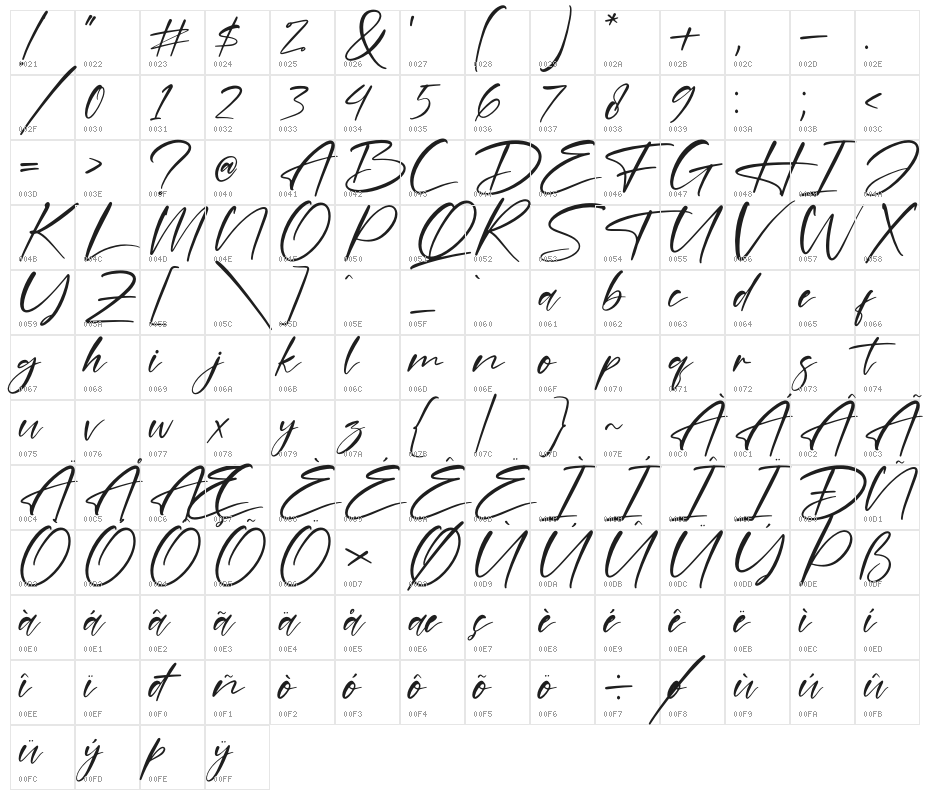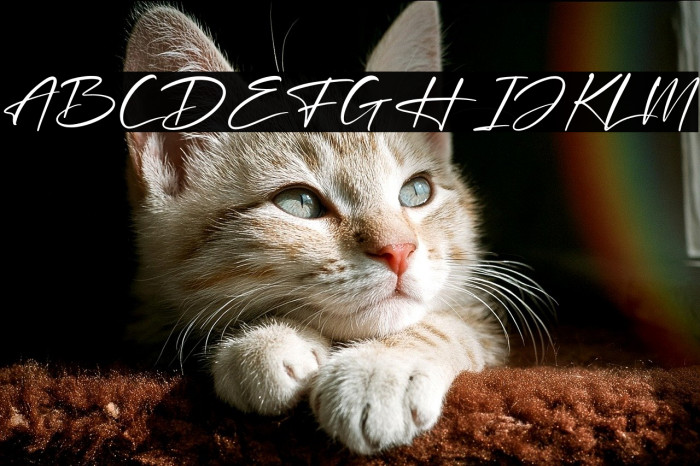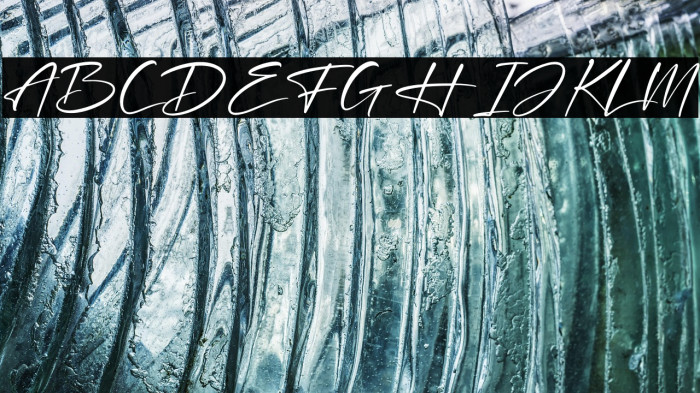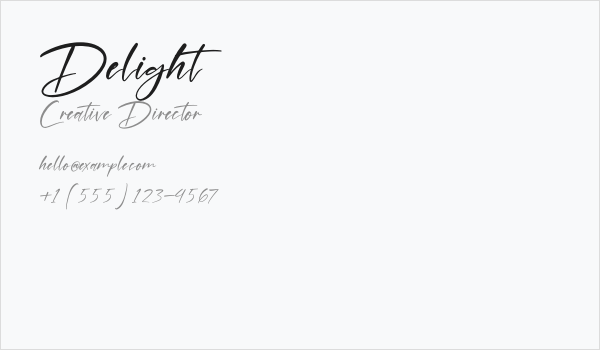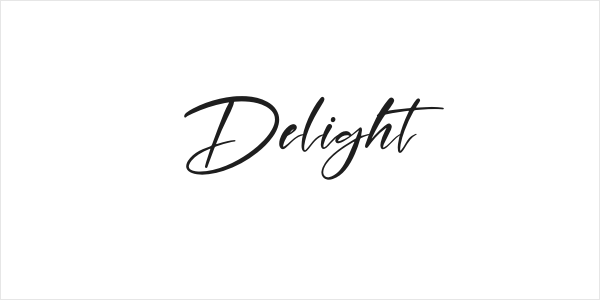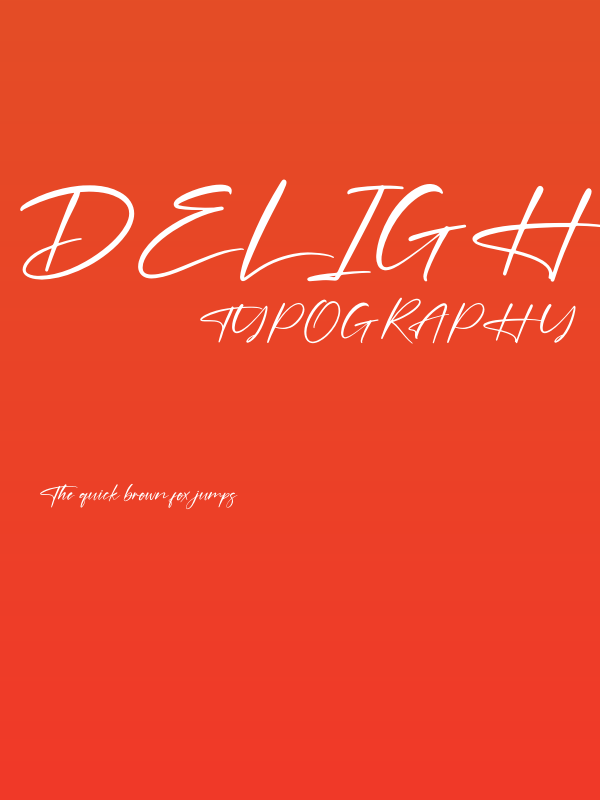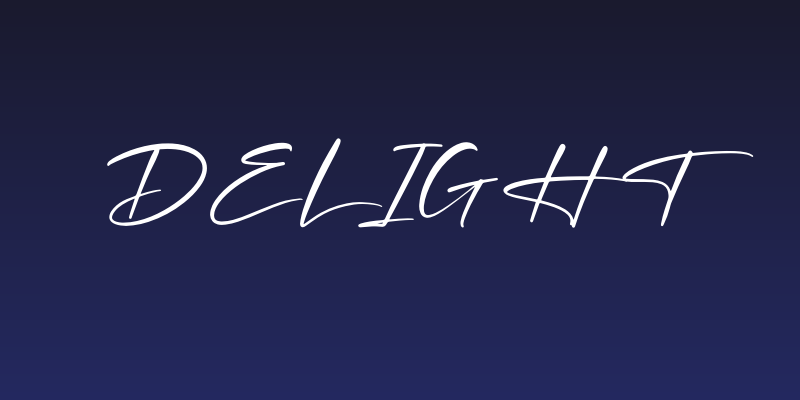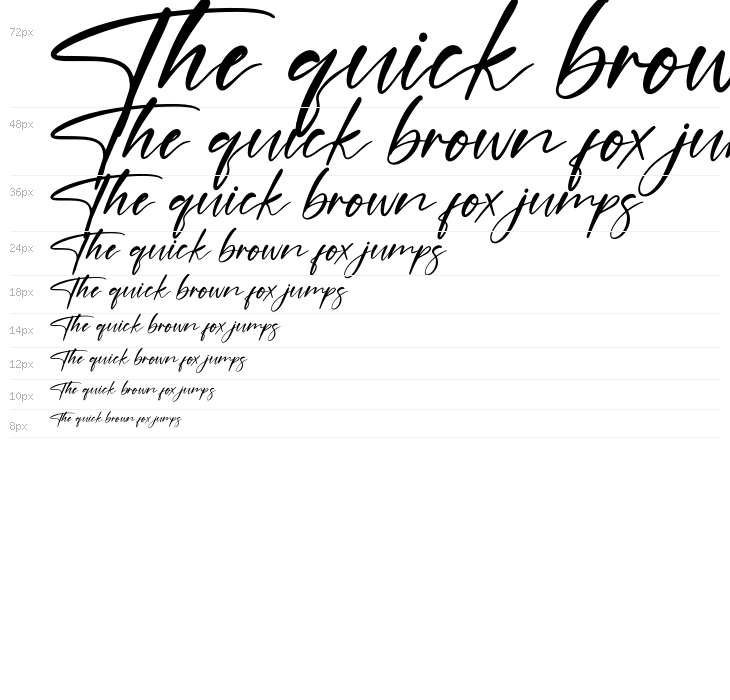
Delight Font
Delight Description
This font features a dynamic and fluid script style, characterized by its elegant and flowing letterforms. The uppercase letters exhibit a graceful, sweeping motion, while the lowercase letters maintain a consistent rhythm and balance. The numerals are designed with a similar fluidity, ensuring a cohesive look across all characters. Special characters are integrated seamlessly, adding to the font's versatility. The overall design exudes a sense of sophistication and creativity, making it suitable for a variety of applications.
| Overall Style | Elegant |
| Use Case | Logos, Invitations, Branding |
| Proposed Projects | Ideal for wedding invitations, branding, greeting cards, and elegant packaging designs. |